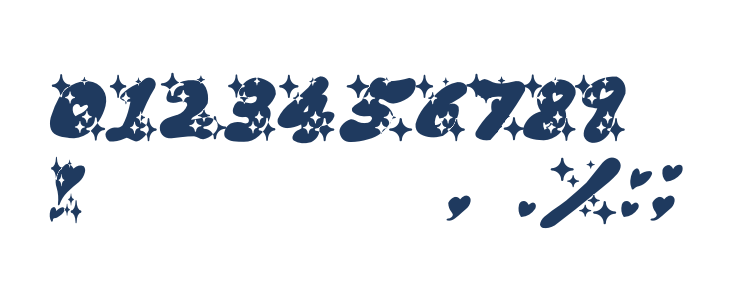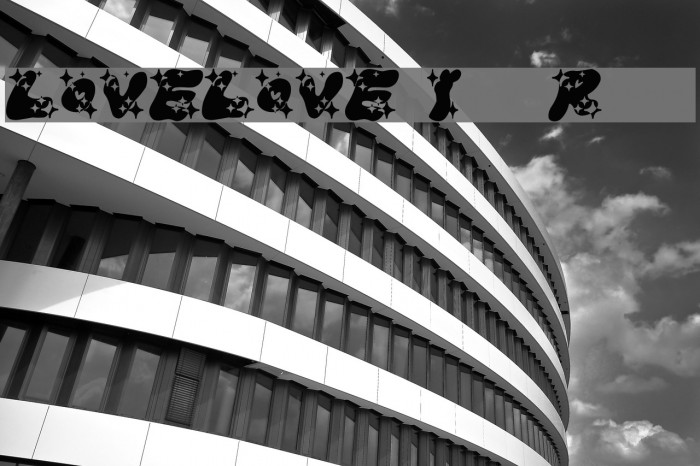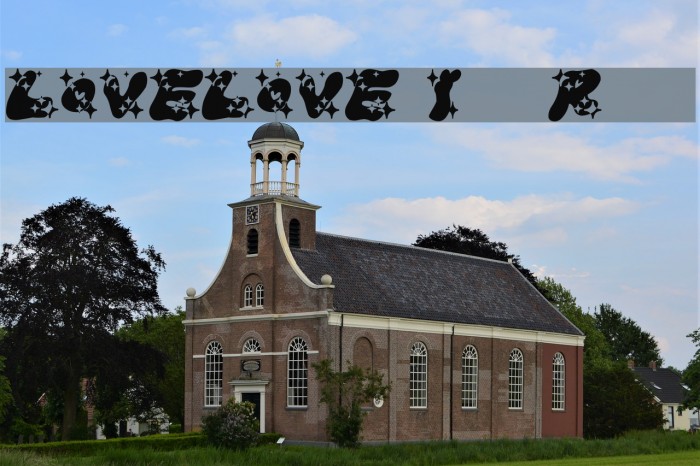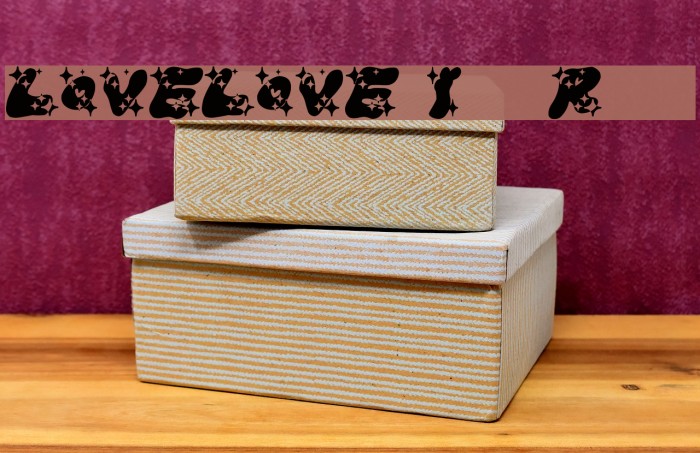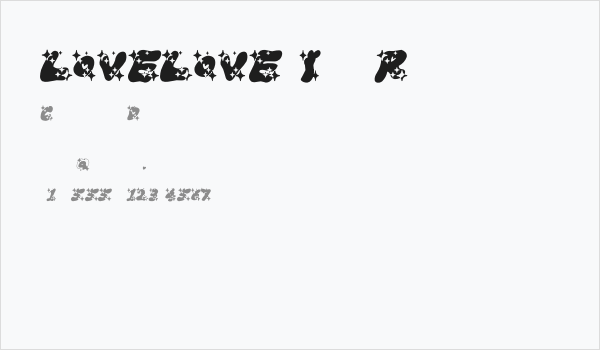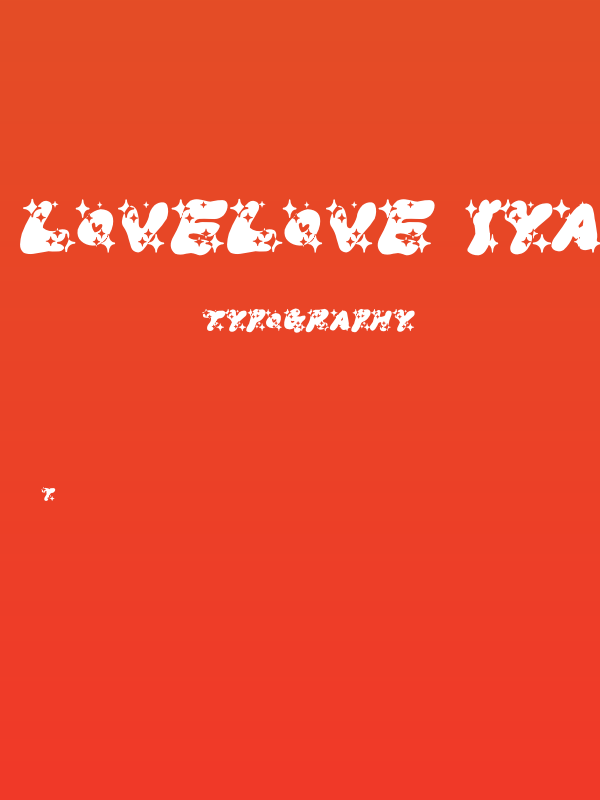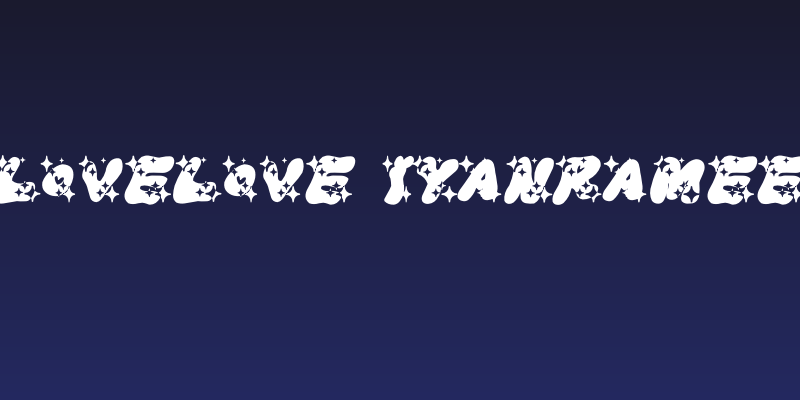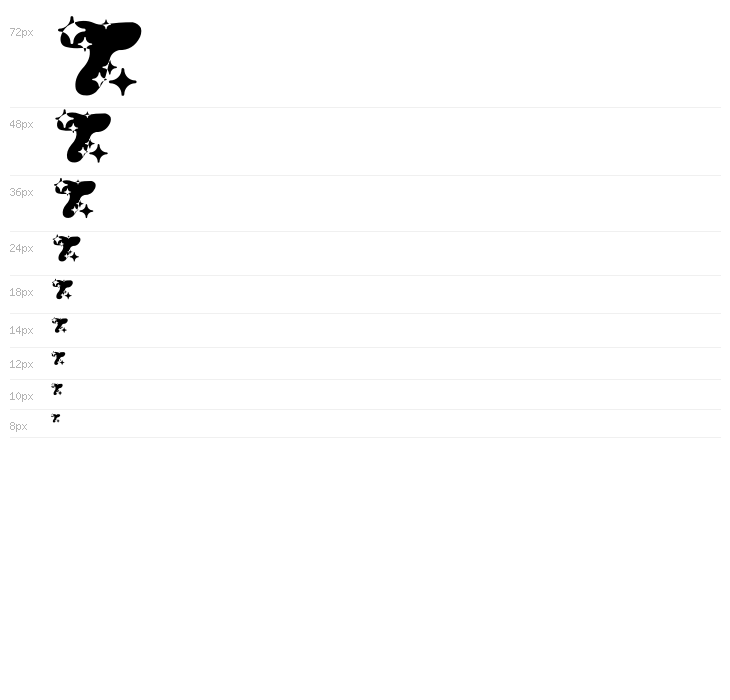
LOVELOVE_IyanRamee Font
LOVELOVE_IyanRamee Description
This decorative font features a bold, playful style with star-shaped embellishments integrated into each character. The letters and numbers are rounded and thick, giving a sense of whimsy and fun. The stars add a dynamic and eye-catching element, making it ideal for creative projects. The font maintains a consistent weight throughout, with a medium contrast between the thick strokes and the star details. Its unique style is perfect for projects that require a touch of magic or fantasy.
| Proposed Projects | Ideal for children's book covers, party invitations, festive banners, and playful branding. |